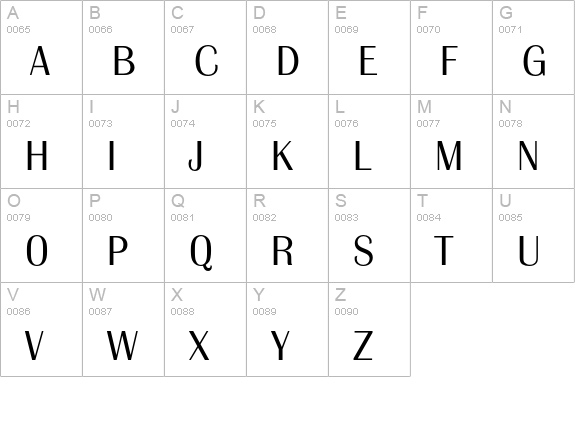
Grenoble-Light Font Details
Grenoble-Light is a refined, elegant variant in the Grenoble typeface family \xE2\x80\x94 well suited to elegant body text, refined sub-headings, and luxury branding.
Grenoble-Light font is a sleek and modern typeface that exudes elegance and sophistication. With its clean lines and minimalist design, this font is perfect for a variety of design projects, from branding to editorial work. The light weight of Grenoble-Light adds a touch of delicacy and refinement to any text, making it an ideal choice for titles, headings, and body copy. What makes Grenoble-Light font even more appealing is that it is available for free download at FontsMarket.com. This means that you can easily access this high-quality typeface without any cost, allowing you to enhance your designs without breaking the bank. Whether you're a professional designer or a hobbyist looking to elevate your projects, Grenoble-Light font is a fantastic choice that combines style, versatility, and accessibility.